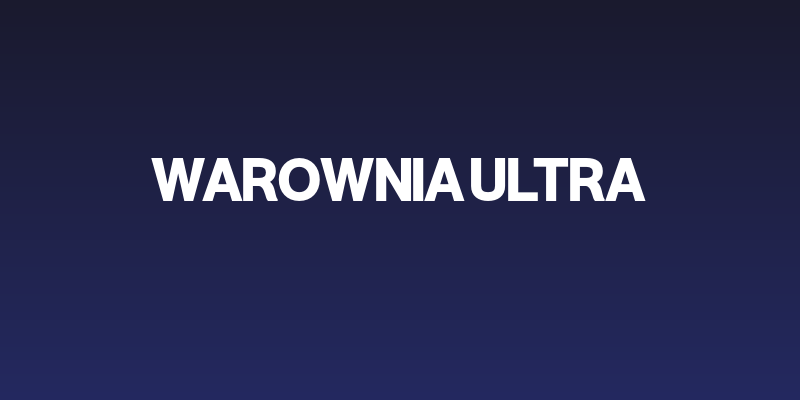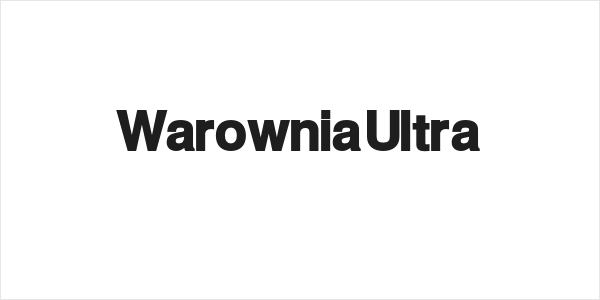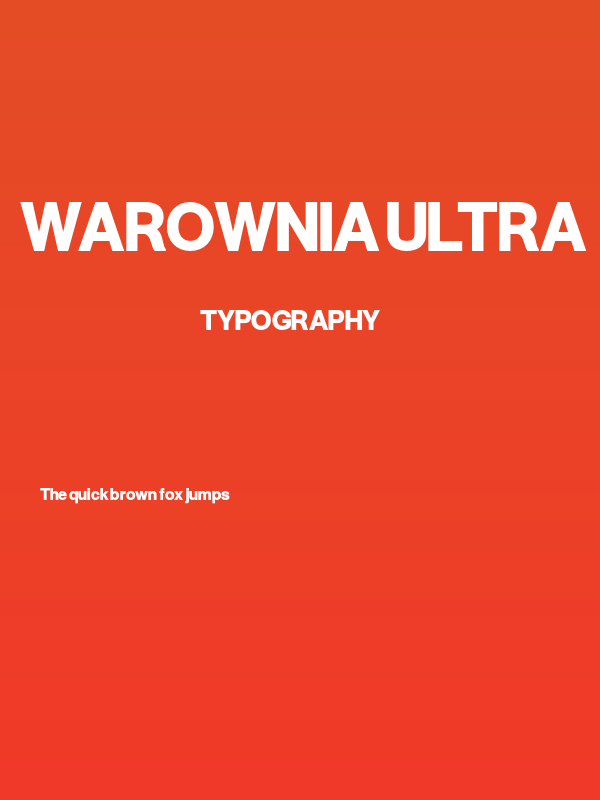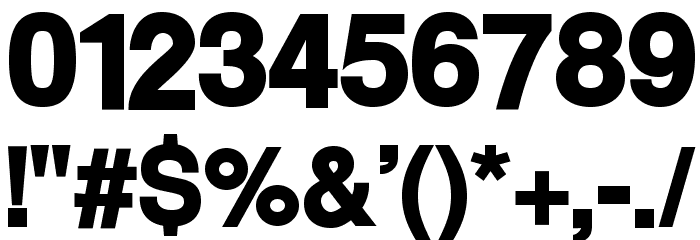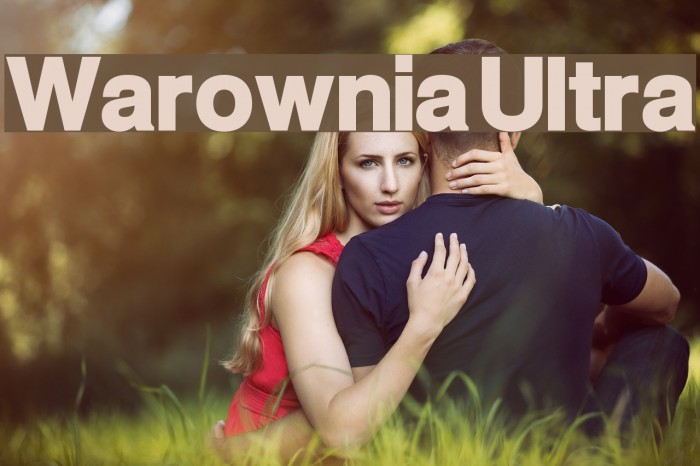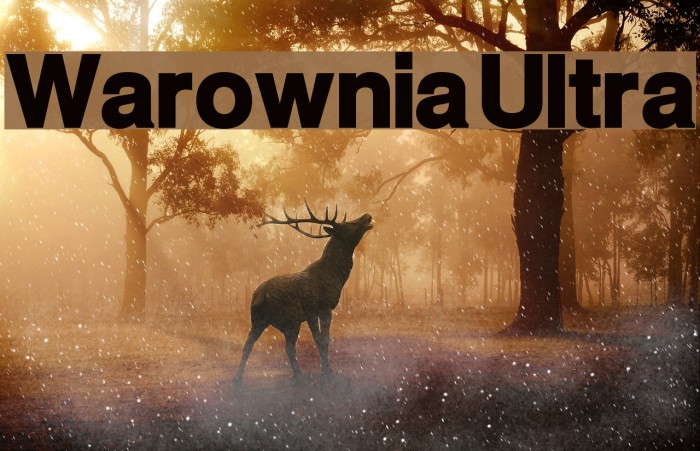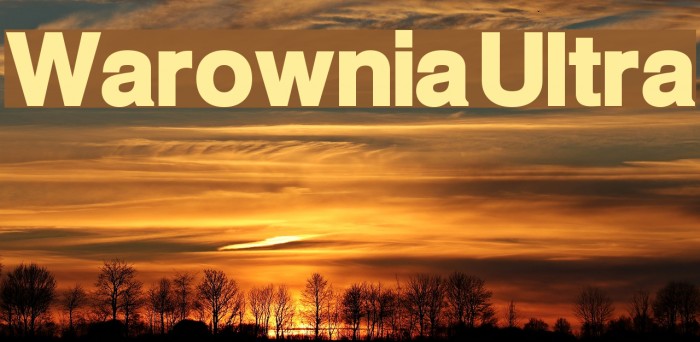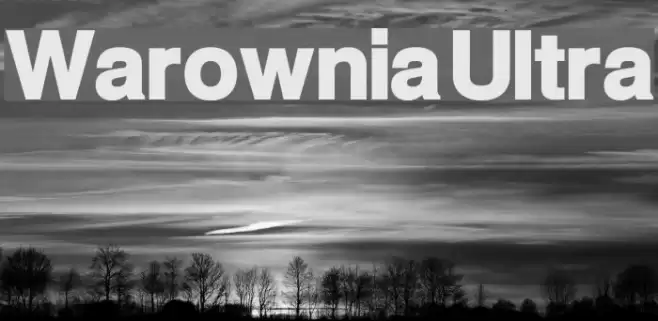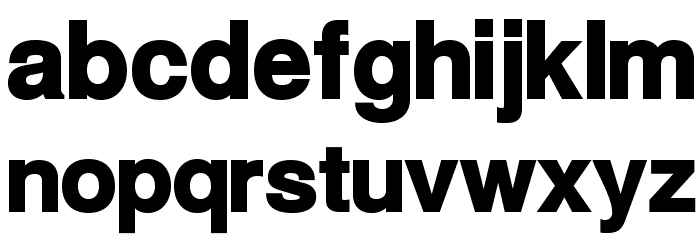
Warownia Ultra Font
Warownia Ultra Description
This font features a bold and impactful design, characterized by its thick strokes and strong presence. The uppercase letters are uniform and balanced, providing a sense of stability and authority. The lowercase letters maintain a consistent weight, ensuring readability while adding a touch of modernity. The numerals are clear and robust, making them suitable for various applications. Special characters are well-defined, enhancing the font's versatility. Overall, this typeface exudes confidence and is ideal for making a statement.
| Proposed Projects | Ideal for headlines, posters, branding, and advertising where a strong impact is needed. |